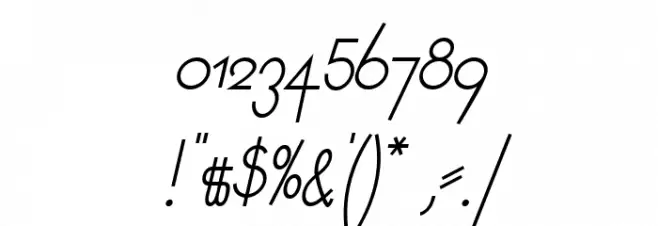
NeueRudelskopfVerbunden-Italic Font
NeueRudelskopfVerbunden-Italic Description
This font features a flowing, cursive style with elegant, connected letters that evoke a sense of fluidity and grace. The characters are slanted, emphasizing its italic nature, and each letter seamlessly transitions into the next, creating a harmonious and continuous script. The strokes are consistent in thickness, providing a balanced and uniform appearance. The font maintains a classic and sophisticated look, suitable for formal and decorative purposes. The numerals and special characters are designed to match the script's overall aesthetic, ensuring cohesion across all elements.
A flowing, cursive italic font with connected letters and a classic, elegant style from Uncategorized fonts.
- Proposed Projects: Ideal for wedding invitations, elegant branding, personal stationery, and decorative headings.
- Overall Style: Classic
- Use Case: Logos, Invitations, Decorative text